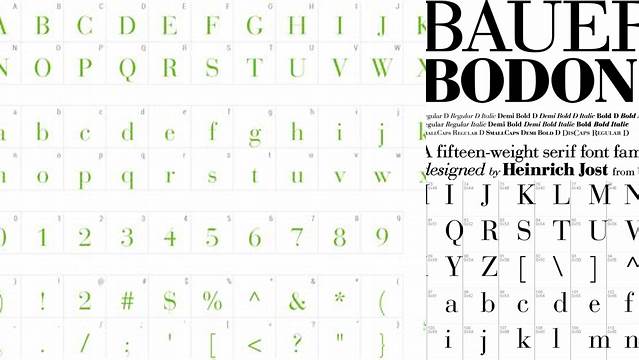
Unveiling the Bauer Bodoni Std Titling Font: A Typographic Gem
Hey design lovers! Let's dive deep into the world of typography and talk about a font that's truly a classic: the Bauer Bodoni Std Titling font. You might have stumbled upon it looking for that perfect touch of elegance and sophistication for your next project, and let me tell you, you're in for a treat. This font isn't just any typeface; it's a piece of design history, a descendant of the legendary Giambattista Bodoni's original work from the late 18th century. What makes the Bauer Bodoni Std Titling stand out is its refined aesthetic. Think sharp serifs, a high contrast between thick and thin strokes, and a general air of refined luxury. It's the kind of font that screams high fashion, exclusive branding, and premium editorial content. When you're aiming for that timeless, high-end look, Bauer Bodoni Std Titling is often the go-to choice for designers who know their stuff. It brings a certain gravitas and polish that's hard to replicate with more contemporary typefaces. It's perfect for headlines, logos, and short bursts of text where you want maximum impact and a definitive statement. The 'Std Titling' part of the name is also a clue to its intended use. Unlike standard text fonts designed for readability in long paragraphs, titling fonts are generally optimized for larger sizes, making them ideal for headlines, titles, and display purposes. This means you'll often find more decorative elements or slightly different proportions to enhance their visual appeal when magnified. So, if you're looking to add a touch of classic grandeur to your designs, understanding the nuances of Bauer Bodoni Std Titling is a great first step.
Why Bauer Bodoni Std Titling is a Designer's Dream
Alright guys, let's break down why this Bauer Bodoni Std Titling font is such a big deal in the design community. It’s not just about looking pretty; it's about the functionality and the feeling it evokes. This font embodies a certain je ne sais quoi, a timeless elegance that transcends fleeting trends. Its design is rooted in the strong geometric principles of the Bodoni family, but the Bauer version often introduces subtle refinements that make it feel both classic and remarkably fresh. The high contrast in its strokes – those really thick downstrokes and hairline thin serifs – creates a dramatic visual effect that's incredibly striking. This contrast is what gives Bodoni-style fonts their distinctive, almost architectural, appearance. It's this very characteristic that makes Bauer Bodoni Std Titling excel in display applications. Imagine a luxury brand logo, a movie poster title, or a high-end magazine cover; this font just works. It commands attention without being loud, exuding confidence and prestige. It’s the visual equivalent of a perfectly tailored suit or a dazzling piece of jewelry – it adds that final, sophisticated flourish. Furthermore, its clarity at larger sizes makes it incredibly versatile for branding. When you want your brand name to be instantly recognizable and associated with quality, Bauer Bodoni Std Titling delivers. It’s a typeface that tells a story of tradition, craftsmanship, and enduring style. It’s the kind of font that makes you pause and appreciate the details, much like a well-crafted piece of art. So, when you’re considering fonts for projects that require a strong sense of identity and a premium feel, keep this gem in your arsenal. It’s a reliable choice that consistently delivers powerful visual impact and a memorable aesthetic.
Exploring the Historical Roots of the Bodoni Typeface
To truly appreciate the Bauer Bodoni Std Titling font, we gotta take a little trip back in time, man. We're talking about the late 18th century, a period of revolution and enlightenment, and at the forefront of typographic innovation was an Italian printer and type designer named Giambattista Bodoni. He was a master craftsman, and his work redefined what a typeface could be. Bodoni's goal was to create a typeface that was as rational, clear, and orderly as the Enlightenment ideals of his time. He was heavily influenced by John Baskerville and Fournier le Jeune, but he took their work to a new level of precision and contrast. His designs featured extreme contrast between thick and thin strokes, vertical stress (meaning the thinnest parts of the letters were perfectly vertical), and sharp, unbracketed serifs. These characteristics created a striking, modern appearance for his time, a departure from the more organic, earlier styles. Bodoni's typefaces were known for their elegance, their geometric perfection, and their readability in large sizes. He published his famous manual, Manuale Tipografico, in 1818, posthumously, which showcased hundreds of his designs and solidified his legacy. The Bauer Bodoni Std Titling font is a direct descendant of this incredible legacy. While it's a modern interpretation, it carries the DNA of Bodoni's original vision. The Bauer Foundry, a German type foundry, played a role in refining and popularizing these designs in the 20th century, hence the 'Bauer' in the name. They helped adapt Bodoni's revolutionary designs for contemporary printing techniques and tastes, ensuring that this classic style continued to thrive. Understanding these historical roots gives you a deeper appreciation for the font's enduring appeal and its place in the pantheon of great typefaces.
Understanding 'Std Titling' in Font Terminology
Now, let's get our heads around what 'Std Titling' actually means when we're talking about fonts like Bauer Bodoni. It's super important for designers, especially when you're hunting for the perfect typeface. 'Std' usually stands for 'Standard,' and in the context of font families, it often refers to the basic, most common version of the font. Think of it as the core design. But the real magic happens with 'Titling.' Fonts designated as 'Titling' are specifically crafted for use at larger sizes – we're talking headlines, titles, logos, posters, you name it. They are not designed for extensive body text where readability over long passages is key. Instead, 'Titling' fonts typically feature exaggerated characteristics that look fantastic when blown up. This might mean bolder strokes, more pronounced serifs, or even slightly different letterforms compared to their 'Text' or 'Regular' counterparts. The goal is maximum visual impact and aesthetic appeal. For Bauer Bodoni Std Titling, this means those classic Bodoni contrasts – the thicks and thins – are really emphasized, and the letterforms might have slightly more flair or proportion adjustments to shine at display sizes. They often have a larger x-height (the height of lowercase letters like 'x') or wider spacing between letters to enhance their presence. So, when you see 'Std Titling,' remember it’s a font built to make a statement, to grab attention, and to add a touch of sophistication and drama to the most prominent parts of your design. It's your secret weapon for powerful, unforgettable headlines.